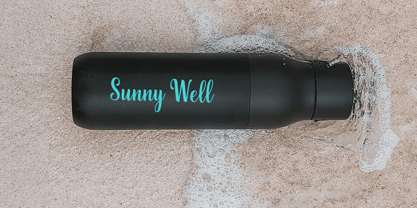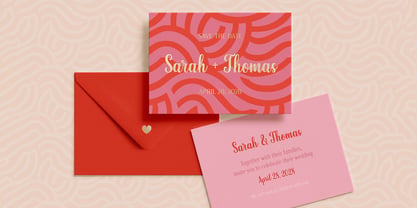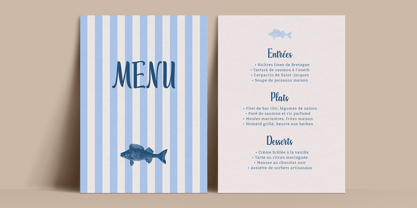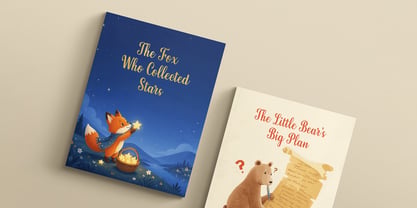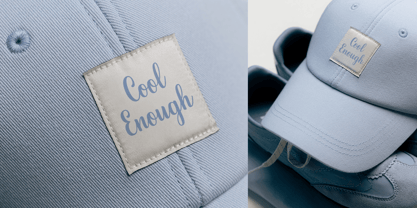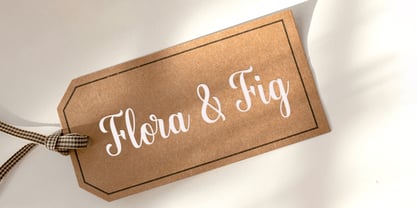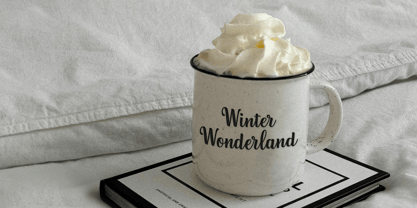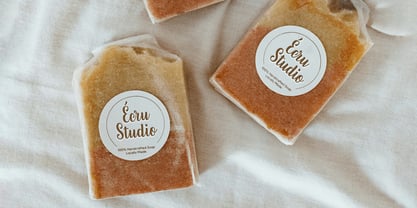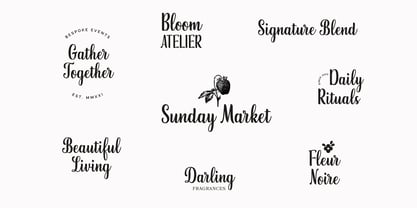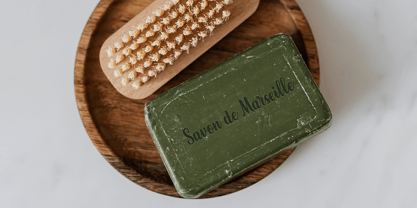
Bonnie Script Pro
by Type and Graphics Studio
The Bonnie Script Pro Font Family was designed by Svetlana Postikova and published by Type and Graphics Studio. Bonnie Script Pro contains 1 styles. More about this family
Bonnie Script Pro is an elegant handwritten script font for branding, logos, packaging, wedding stationery, and creative design.
This font is inspired by modern calligraphy, natural handwriting, and vintage sign painting. With its smooth flow, expressive letterforms, and carefully balanced rhythm, it brings warmth, elegance, and personality to a wide variety of creative projects.
Whether you’re designing a brand identity, product packaging, wedding stationery, social media graphics, or editorial layouts, Bonnie Script Pro helps create work that feels polished, distinctive, and beautifully handcrafted.
Designed with versatility in mind, the typeface includes extensive multilingual support with both Latin and Cyrillic character sets, along with numerous ligatures and stylistic alternates for more natural-looking lettering.
Perfect for
• Logos & branding
• Packaging & labels
• Wedding invitations
• Greeting cards
• Social media graphics
• Editorial design
• Posters
• Quotes & signatures
Features
• Uppercase & lowercase
• Latin + Cyrillic support
• Numerals & punctuation
• Ligatures
• Stylistic alternates
• Multilingual support